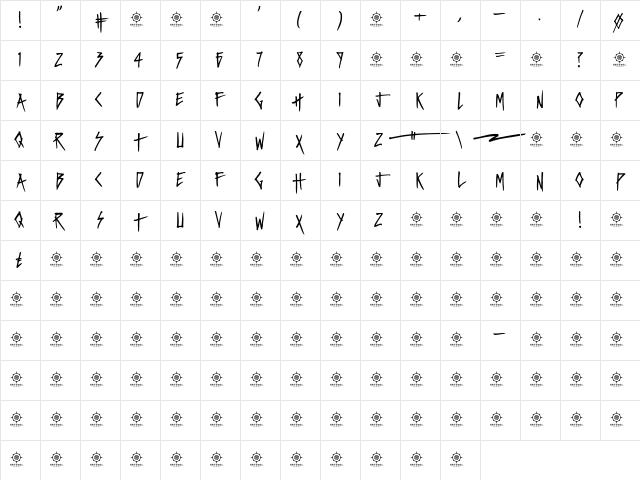
Violent Desire Regular
Foundry: Set Sail Studios
Designer: Set Sail Studios
Complete Violent Desire Regular glyph index. Displaying only characters natively supported by Violent Desire Regular font.
Design Context for Violent Desire
Violent Desire is a composed and adaptable typeface that performs quietly and consistently across a wide range of design contexts.
Who designed the Violent Desire Regular font?